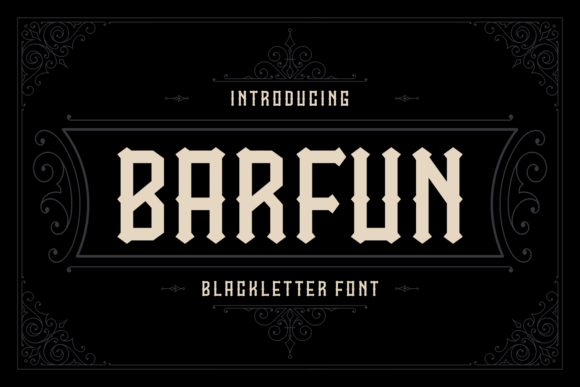
Introducing Barfun Font: A Bold and Angular Blackletter Font
Barfun font is a striking and modern blackletter font that draws inspiration from traditional Gothic typography, but with a unique twist. Its bold and angular design makes it perfect for a variety of applications, from vintage labels and beer branding to tattoo designs, bar signage, and rock band merchandise.
Key Features of Barfun Font
- Bold and Angular Design: Barfun font boasts a rigid structure, pointed edges, and sharp geometric lines that give it a distinctive and commanding presence.
- Inspired by Traditional Gothic Typography: Barfun font pays homage to the traditional Gothic typography, but with a modern edge that sets it apart from more traditional blackletter fonts.
- Mix of Historical Flair and Attitude: Barfun font seamlessly blends historical flair with a punch of attitude, making it perfect for designs that require a strong and authentic personality.
Perfect for a Variety of Applications
Barfun font is versatile and can be used for a wide range of applications, including:
- Vintage Labels: Barfun font is perfect for creating vintage-style labels that require a bold and attention-grabbing design.
- Beer Branding: The font’s bold and angular design makes it ideal for beer branding, particularly for craft beers that require a unique and memorable logo.
- Tattoo Designs: Barfun font’s striking design makes it perfect for tattoo designs that require a bold and edgy look.
- Bar Signage: The font’s commanding presence makes it ideal for bar signage, particularly for bars that want to create a strong and authentic atmosphere.
- Rock Band Merchandise: Barfun font is perfect for rock band merchandise, such as T-shirts, posters, and album covers, that require a bold and attention-grabbing design.
Benefits of Using Barfun Font
Barfun font offers a range of benefits for designers, including:
- Strong and Authentic Personality: Barfun font gives your designs a strong, authentic, and rugged personality that is sure to grab attention.
- Timeless Feel: The font’s traditional Gothic inspiration ensures that it has a timeless feel that will not go out of style.
- Perfect for Headlines and Logos: Barfun font is perfect for headlines, logos, and posters where you want to make a bold statement.
- Works Great for Packaging: The font’s bold and angular design makes it perfect for packaging designs that require a strong and attention-grabbing look.
Barfun Font Style
Barfun font is a bold and angular blackletter font that features:
- Rigid Structure: The font’s rigid structure gives it a strong and commanding presence.
- Pointed Edges: The font’s pointed edges add to its bold and edgy look.
- Sharp Geometric Lines: The font’s sharp geometric lines give it a modern and sleek look.
Tips for Using Barfun Font
Here are some tips for using Barfun font effectively:
- Use it for Headlines and Logos: Barfun font is perfect for headlines and logos where you want to make a bold statement.
- Pair it with Simple Backgrounds: The font’s bold and angular design works best with simple backgrounds that allow it to take center stage.
- Experiment with Colors: Barfun font works well with a range of colors, so don’t be afraid to experiment and find the perfect combination for your design.
Barfun font is a bold and angular blackletter font that is perfect for designers who want to add a touch of rebellion and heritage to their designs. Its rigid structure, pointed edges, and sharp geometric lines make it perfect for a variety of applications, from vintage labels and beer branding to tattoo designs and rock band merchandise. With its commanding presence and timeless feel, Barfun font is sure to give your designs a strong, authentic, and rugged personality.